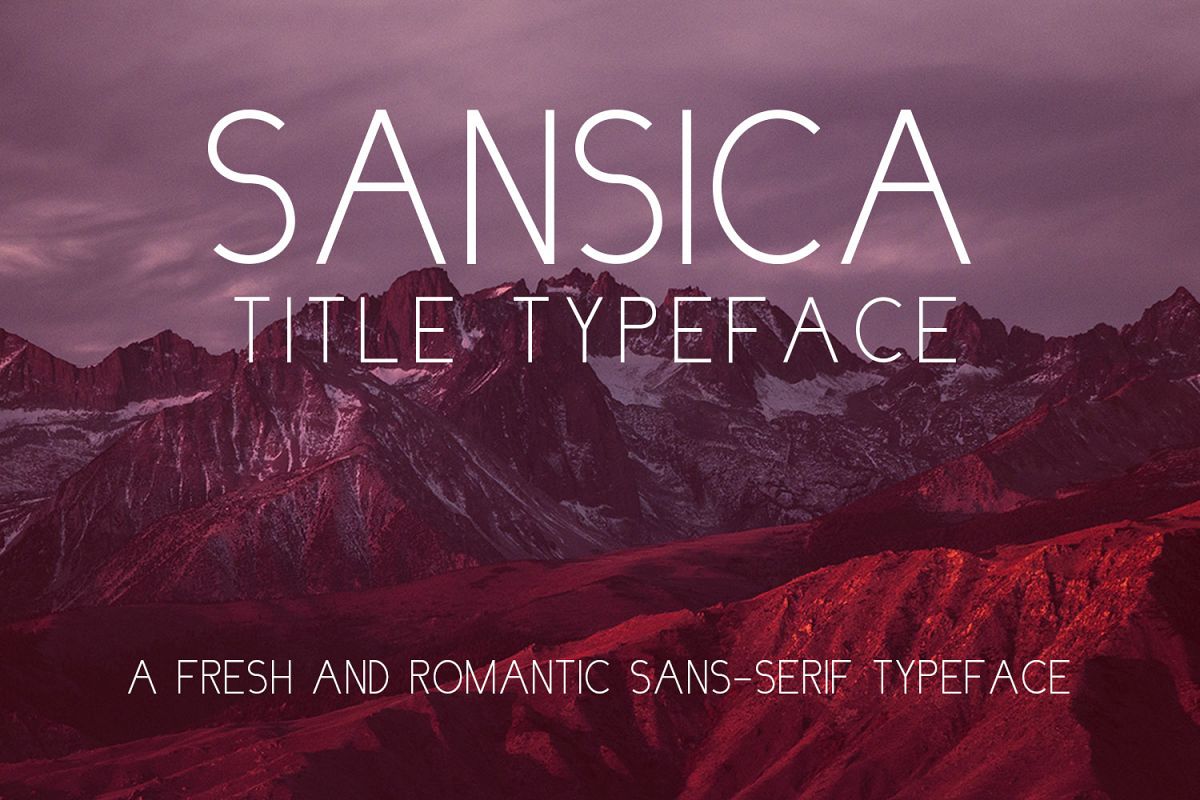
Sansica Title Font
Say hello to Sansica!
Sansica is a fresh and romantic sans-serif typeface which has been designed with content creators in mind. Picture Sansica on your next logo, business card design, greeting card design, or anything that requires a touch of simplistic class, professionalism and cleanliness, whilst still having an authentic, classic and romantic feel to your design.
Sansica is an all-caps font.